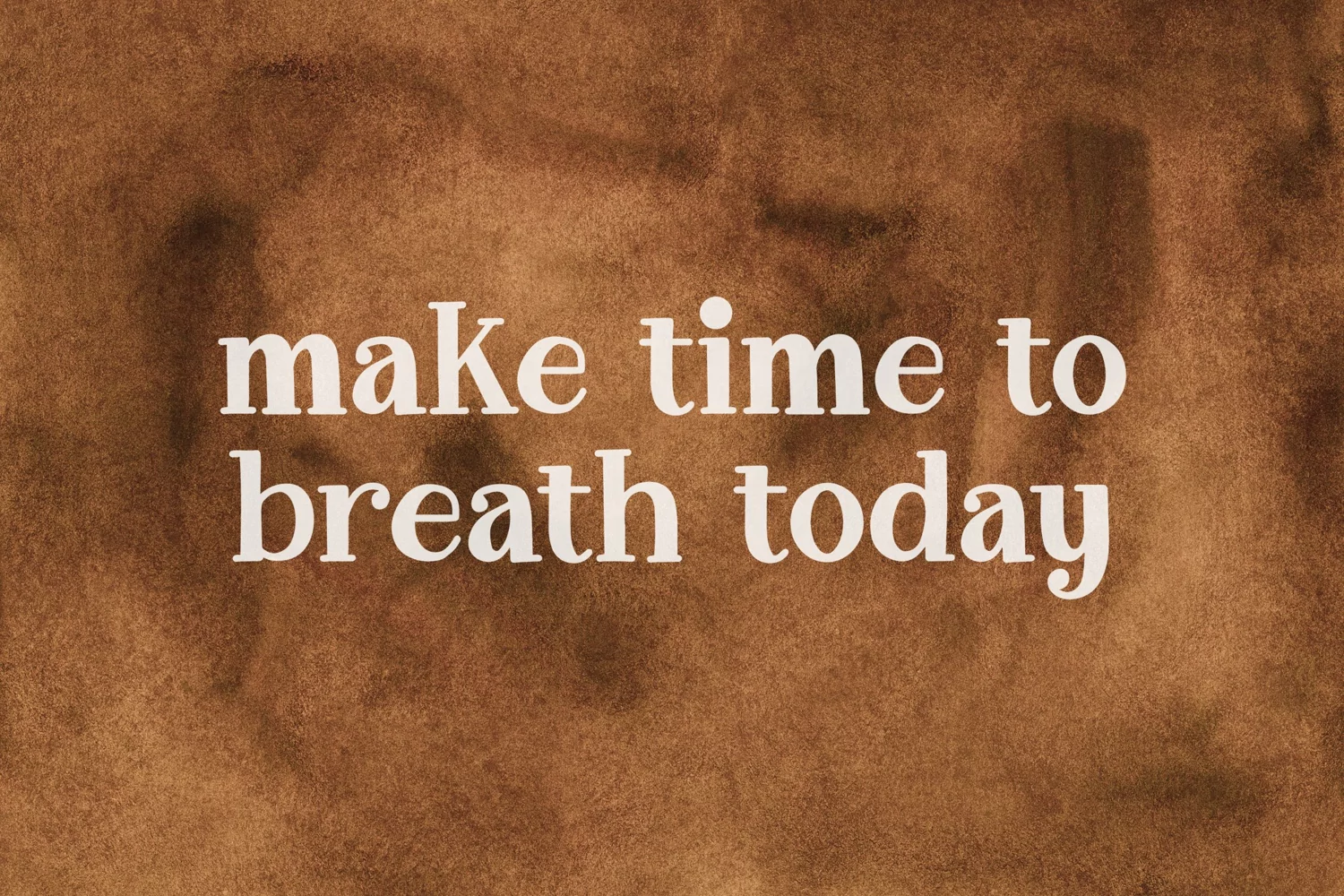
Presenting Wanted Stations - Classic Style Serif Font for Your Project. A perfect font which can be used for multiple purpose.
2- Super Creative Font.